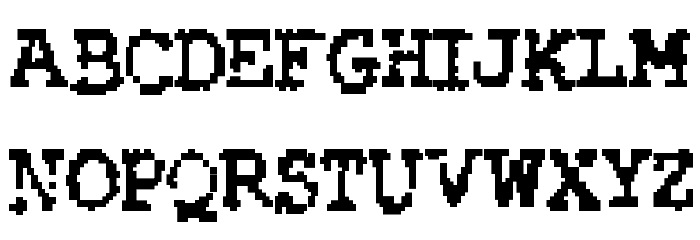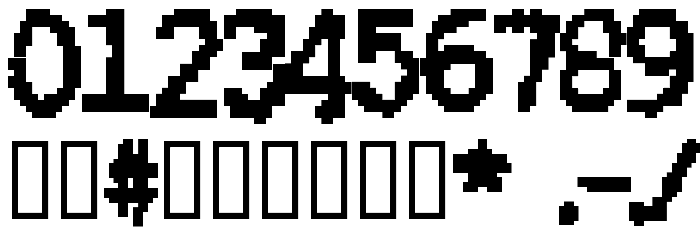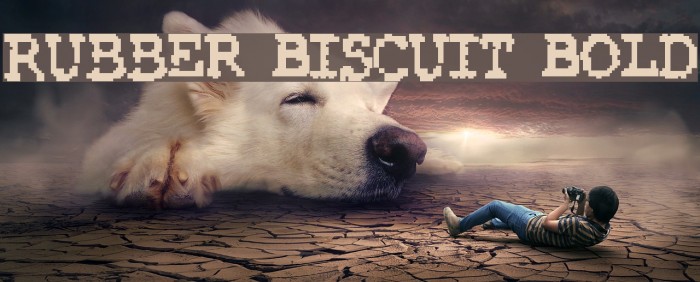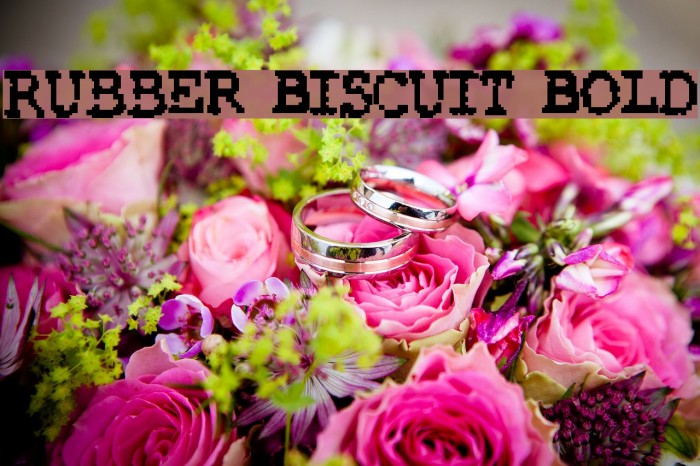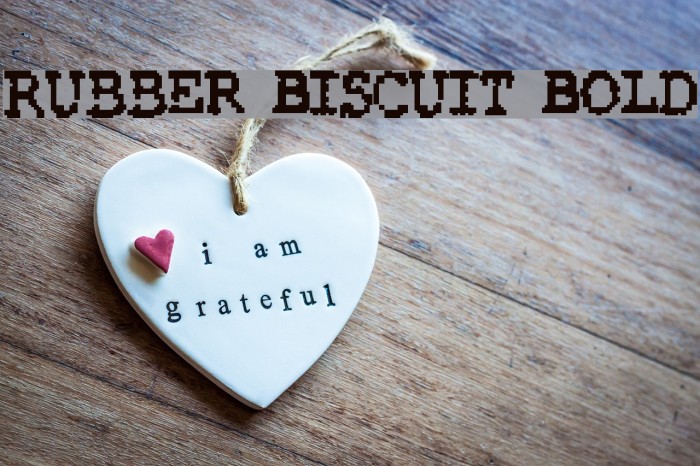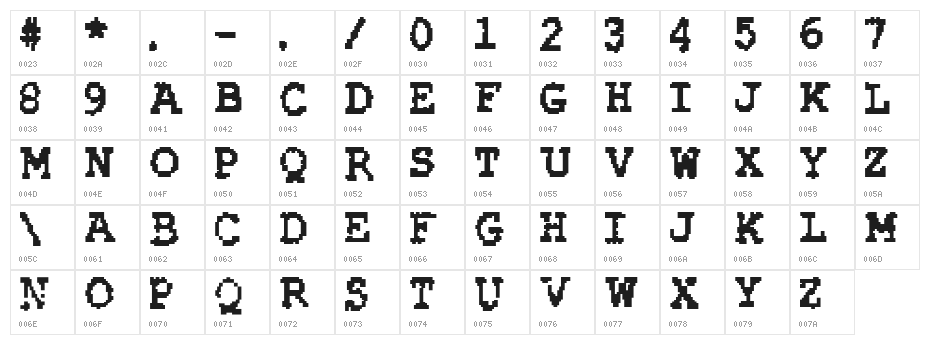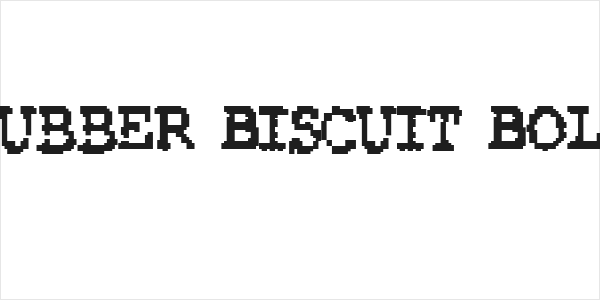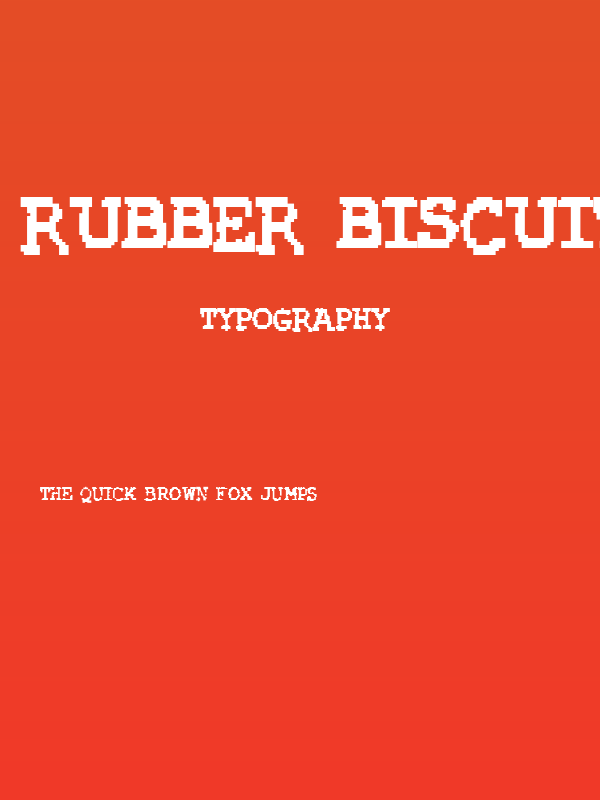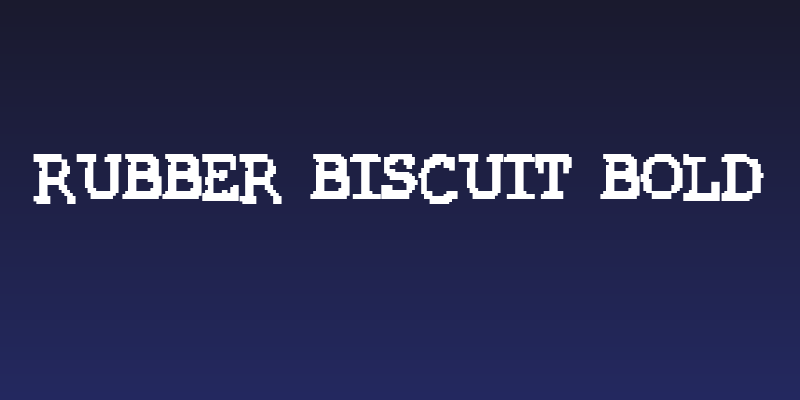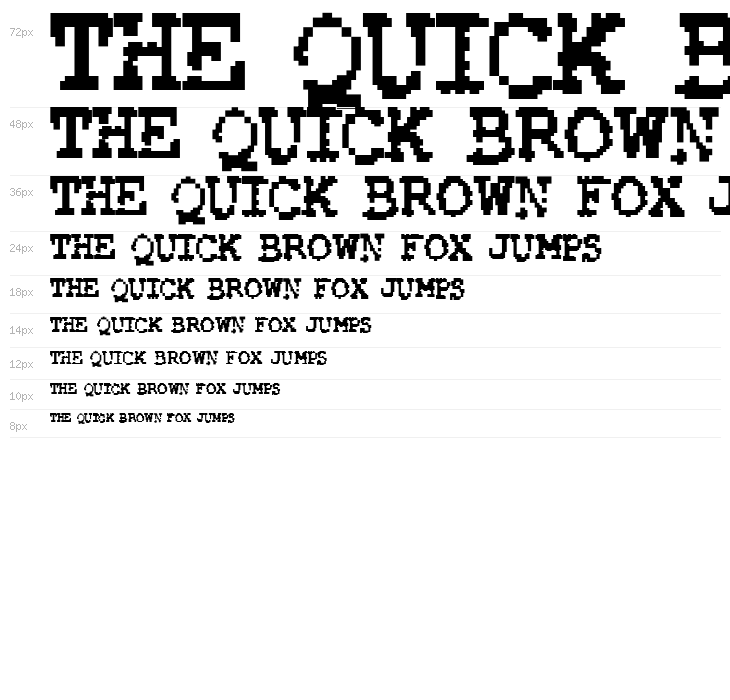
Rubber Biscuit Bold Font
This font features a bold, pixelated style reminiscent of retro digital displays or classic video games. Each character is composed of blocky, square shapes that give it a distinctly digital and geometric appearance. The uppercase and lowercase letters maintain a consistent height, contributing to a uniform look across the text. The numbers and special characters follow the same pixelated design, ensuring a cohesive visual style. This font's unique aesthetic makes it stand out, offering a nostalgic feel that is both playful and striking.
- Proposed Projects: Ideal for video game graphics, retro-themed posters, digital art, and any project seeking a nostalgic, digital look.
- Overall Style: Retro, Digital
- Use Case: Logos, Posters, Digital Art